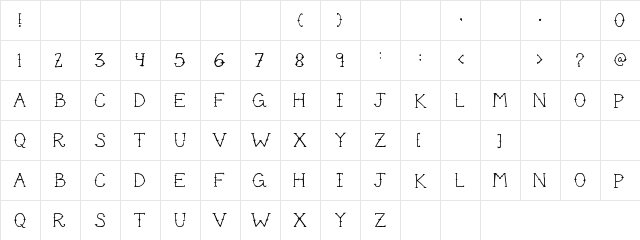
Cute Tattoo Regular
| Designer | Andrew2Hart, Dirt2.com |
Design Context for Cute Tattoo Typeface
Cute Tattoo offers clean, dependable letterforms without strong stylistic allegiance, making it a practical choice for designers who need flexibility.
Pro Tip: Use Cute Tattoo in both headline and body roles to test its range before committing to a single application.